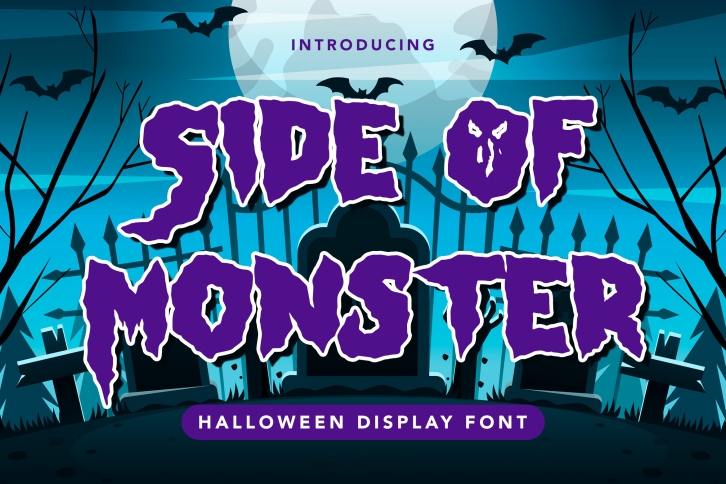
Side of Monster is a spooky display font that features a horror and gothic style. It is perfectly suitable for any Halloween-related project or crafty idea! The only limit is your imagination.